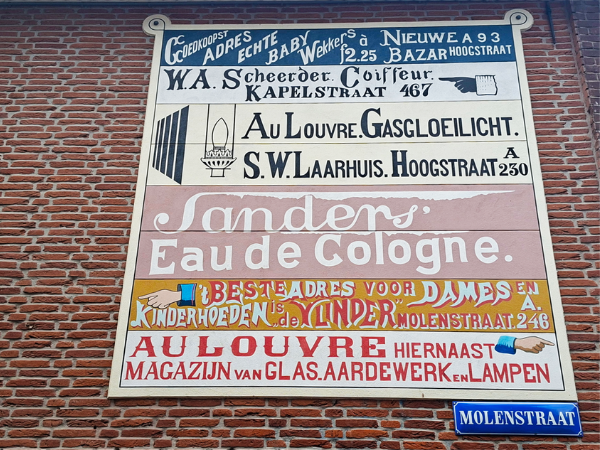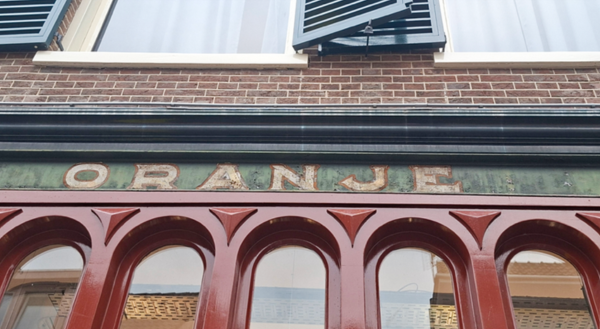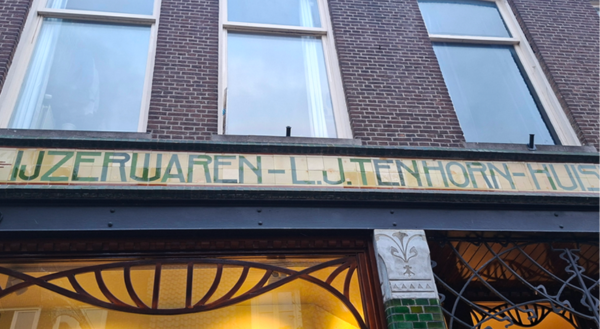
This time, get to know Randwijk, Netherlands with David Kerkhoff of Hanoded Fonts.
A portrait of David taken at the Rongwo Monastery in Tongren, China. He still works as an adventure tour guide now and then, usually in Asia.
Tell us a bit about yourself and your foundry.
Right now My foundry is Hanoded Fonts. Hanoded means “the wanderer” in Hebrew, which describes my life well.
David works exclusively from his kitchen and moves his drawings, computer, and ink bottles every day to make room for dinner with his family.
I didn’t find my way to typography right away. When I finished high school and had to choose a subject to study in college, typography wasn’t in my top ten. It wasn’t in the top 100 either!
After my studies, I set off to explore the world, living in various countries and taking on all kinds of jobs to keep traveling. When I eventually ran out of money, I became an adventure tour guide for Dutch groups. The photos I took during these trips were sold as stock photography, which complemented my meagre $35 per day income.
I then decided to build a photography website, for which I needed a nice font. It may have been the first time I had EVER looked for a font other than the ones that were living in my computer! I couldn’t find what I was looking for, so I made one myself — which ended up being quite ugly, and also not what I was looking for. I parked the font at a “free fonts” website and forgot about it, until one day someone offered me $10 for it!
That was the turning point in my career. I couldn’t believe someone would willingly part with a good tenner for something I had created — and if one person would willingly part with money, then there just might be others as well. That first $10 catapulted me into the hitherto unknown world of typography, and I haven’t looked back since!
Tell us about your city. What do you love about it? What’s distinctive about it?
When Monotype invited me for this series, I had a brief moment of doubt; the stories I read were all about people hailing from glamorous cities like Paris, Vienna, Athens… Then enter David from Hanoded Fonts, who lives in a sleepy Dutch village called Randwijk, with a population of 1,500. It has no shops, not even a supermarket, but it does have a 13th-century church that houses a couple of storks who have so far produced four storklings.
The historic Church of Randwijk, with a stork’s nest in the chimney.
It may be a sleepy hamlet, but Randwijk’s history goes way back. When the Romans halted their conquest of Europe here, it became a border town. During World War II, Randwijk was sandwiched between the Germans and the Allied forces and was therefore shelled beyond recognition. The “Band of Brothers” TV episode “Crossroads” takes place in and around Randwijk. Bet you didn’t know that!
A memorial for the 101st Airborne Division.
It is nice and quiet here — sometimes a bit too quiet. I often go to Wageningen, which could probably be called a city, but is still quite small. Getting there involves a bicycle trip along the dike and a ferry ride across the Rhine River.
The Randwijk dike.
Wageningen is home to one of the world’s leading agricultural universities: the WUR (Wageningen University & Research). Because of the university, Wageningen has a very international vibe. You hear more spoken English than Dutch when you stroll around the center, and you see people from all over the world.
A sign in English in Wageningen.
All these students need to drink and dance, so there are a lot of bars around the city. The city itself has an interesting blend of architectural styles, but 1930s buildings make up a huge chunk of the skyline. If you look closely, you’ll find some typographic gems hidden on the facades!
The typography in Wageningen reflects its character; on the one hand you have the elegant Art Deco typefaces gracing the facades of the older buildings. On the other hand, because of the influx of students from all over the world, you’ll find a lot of handmade signs, no-nonsense protest flyers, and hip and happening invites to dances and meetings.
Eclectic signage across Wageningen.
Where would you take someone visiting your city for the first time to explore its creative heart?
When people ask me what to see in Randwijk, I’d tell them to look a bit beyond the village. They could visit 13th-century Doorwerth Castle and have a stroll in the woods surrounding it.
Doorwerth Castle, a short 15 minute drive or half hour bike ride from Randwijk.
The peaceful grounds surrounding Doorwerth Castle.
The Schoonderlogt Estate near Randwijk.
What’s a typeface that you think represents the spirit of your city and why?
My typeface Mariken, which is based on medieval typefaces and has a “ye olde” feeling about it, represents Randwijk fairly well. It also seems to be one of those fonts that gets overlooked, which is what describes my neck of the woods best.
The Mariken typeface, designed by David Kerkhoff.